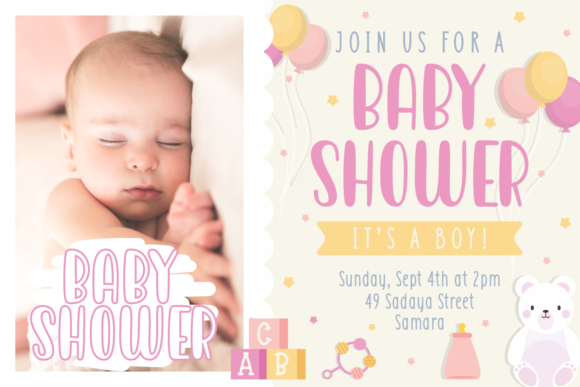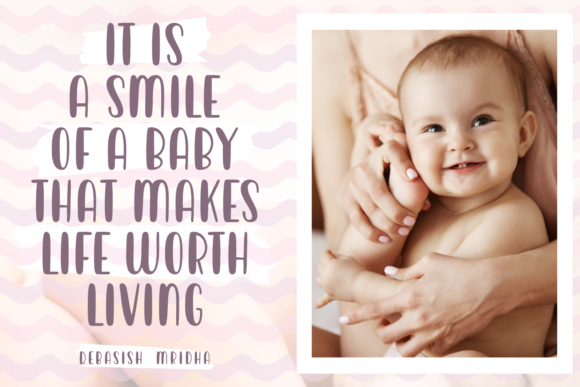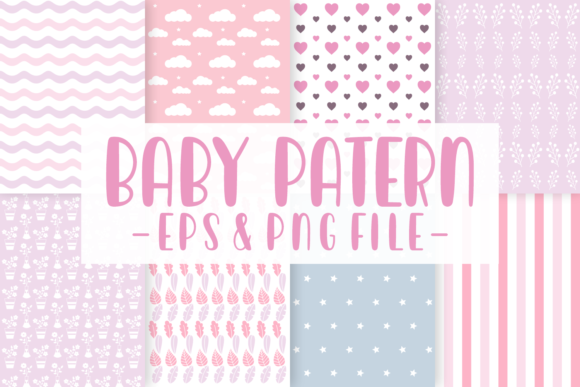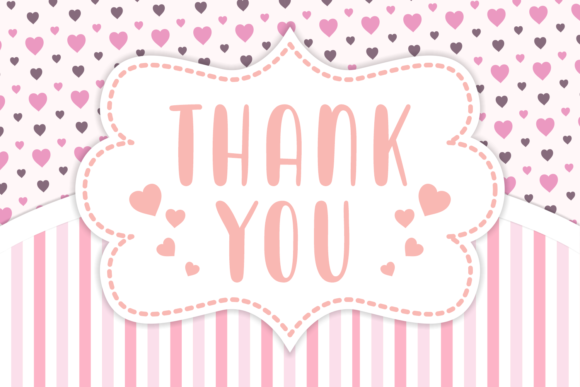
Hello Cardila Font: The Perfect Choice for Playful Designs
Hello Cardila is a delightful, handwritten font that brings a touch of playfulness and authenticity to any design project. This cute and casual font is ideal for children’s activities, school projects, and any creative endeavor that requires a friendly and approachable feel. In this article, we’ll explore the features and benefits of Hello Cardila Font, and how it can elevate your designs to new heights.
The Charm of Hello Cardila Font
Hello Cardila Font is a carefully crafted, handwritten font that exudes a sense of warmth and friendliness. Its playful and casual nature makes it perfect for designs that require a personal touch. The font’s unique characteristics, such as its irregular letterforms and subtle imperfections, give it a charming and endearing quality that will capture the hearts of your audience.
Perfect for Children’s Activities and School Projects
Hello Cardila Font is specifically designed with children’s activities and school projects in mind. Its playful and approachable feel makes it an excellent choice for:
- Children’s books and educational materials
- School posters and flyers
- Activity sheets and worksheets
- Craft projects and DIY tutorials
With Hello Cardila Font, you can create engaging and interactive designs that will delight children and inspire their creativity.
Bring Your Designs to Life
Hello Cardila Font is more than just a font – it’s a design element that can transform your creations and make them come alive! By adding this font to your designs, you’ll instantly inject a sense of playfulness and personality into your work. Whether you’re a designer, crafter, or educator, Hello Cardila Font is the perfect tool to help you:
- Create eye-catching titles and headings
- Add a personal touch to your designs
- Develop a unique and recognizable brand identity
Hello Cardila Font offers a range of features and benefits that make it an excellent choice for designers and crafters. Some of its key features include:
- Handwritten, casual, and playful feel
- Unique and irregular letterforms
- Subtle imperfections and texture
By choosing Hello Cardila Font, you’ll gain access to a versatile and reliable design tool that will help you create stunning and effective designs.
Tips for Using Hello Cardila Font
To get the most out of Hello Cardila Font, here are some tips and best practices to keep in mind:
- Use it for titles, headings, and emphasis text
- Pair it with other fonts for added contrast and visual interest
- Experiment with different colors and textures
- Keep it consistent across your designs to build brand recognition
Hello Cardila Font is a charming and versatile font that’s perfect for designers, crafters, and educators looking to add a touch of playfulness and authenticity to their designs. With its unique characteristics, irregular letterforms, and subtle imperfections, this font is sure to bring your creations to life! Whether you’re working on a children’s activity, school project, or craft project, Hello Cardila Font is the perfect choice. So why wait? Add Hello Cardila Font to your designs today and discover the magic of playful typography!